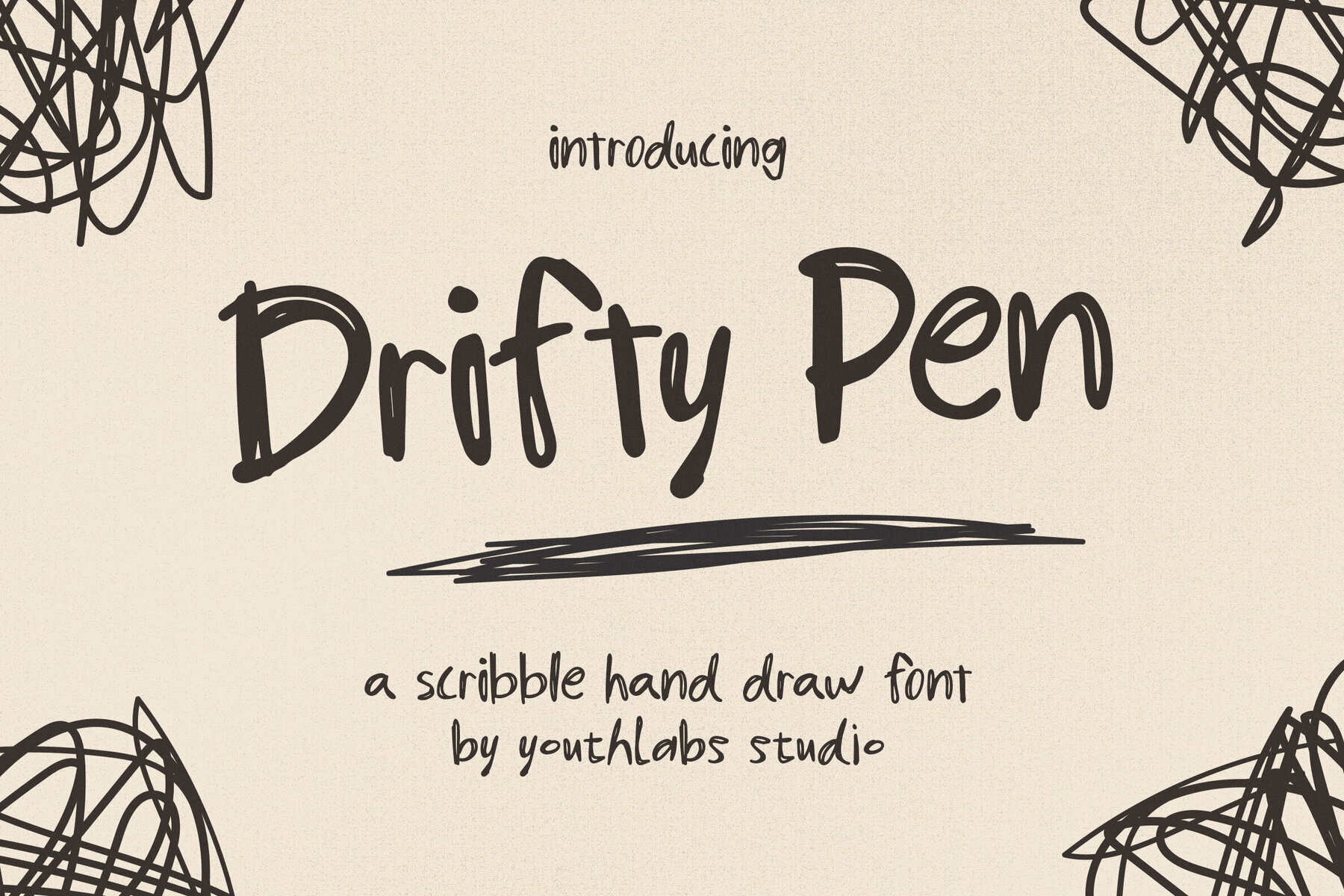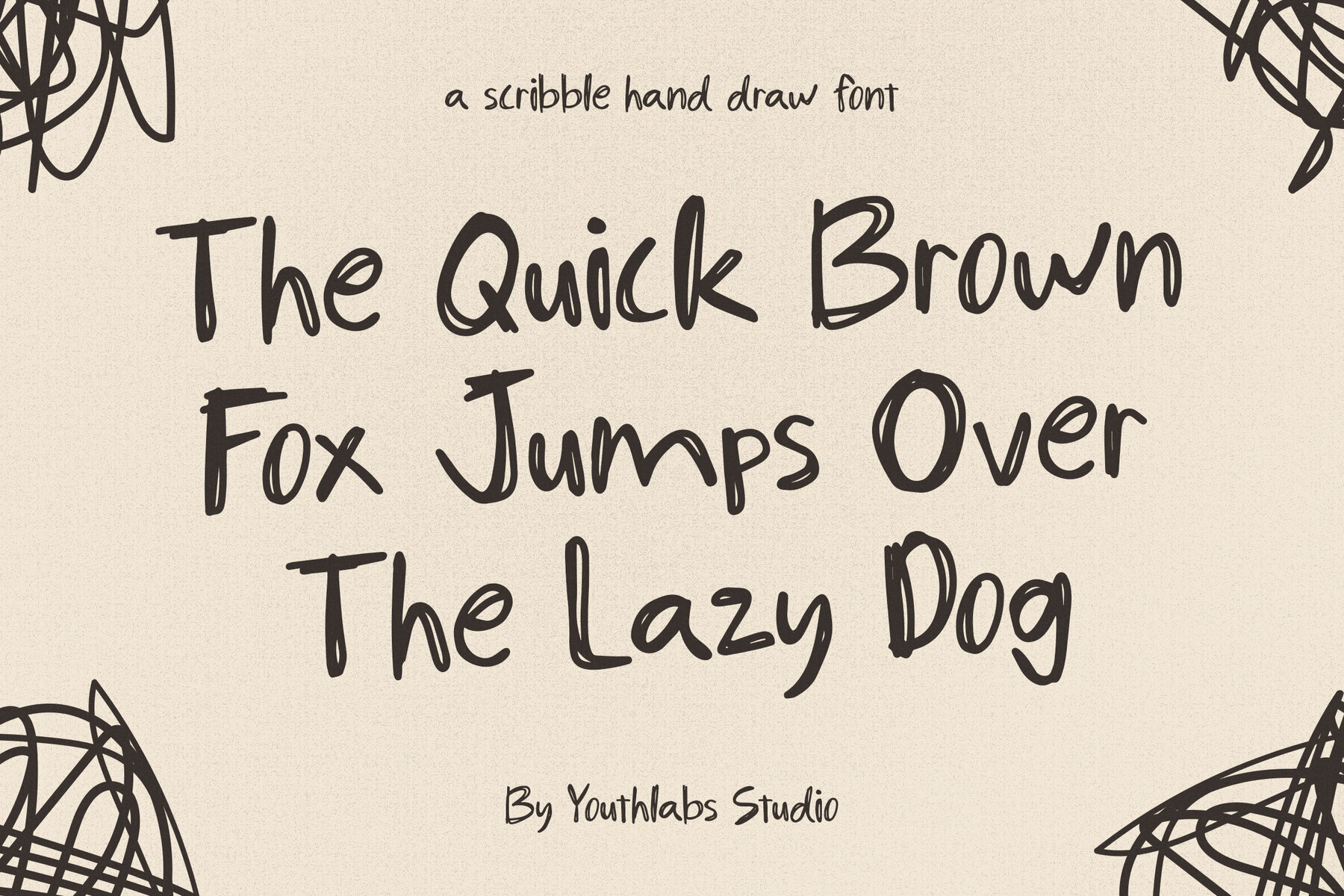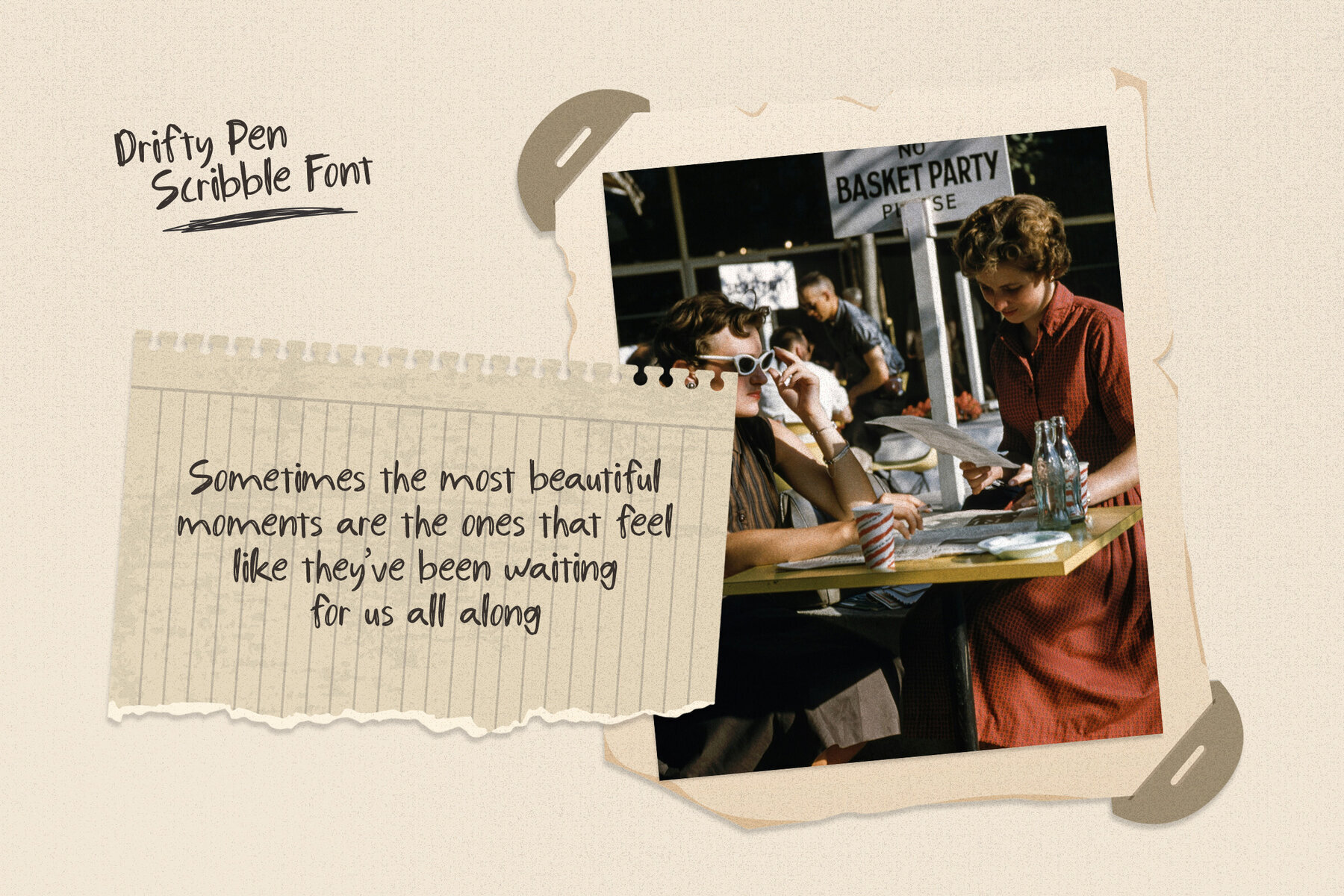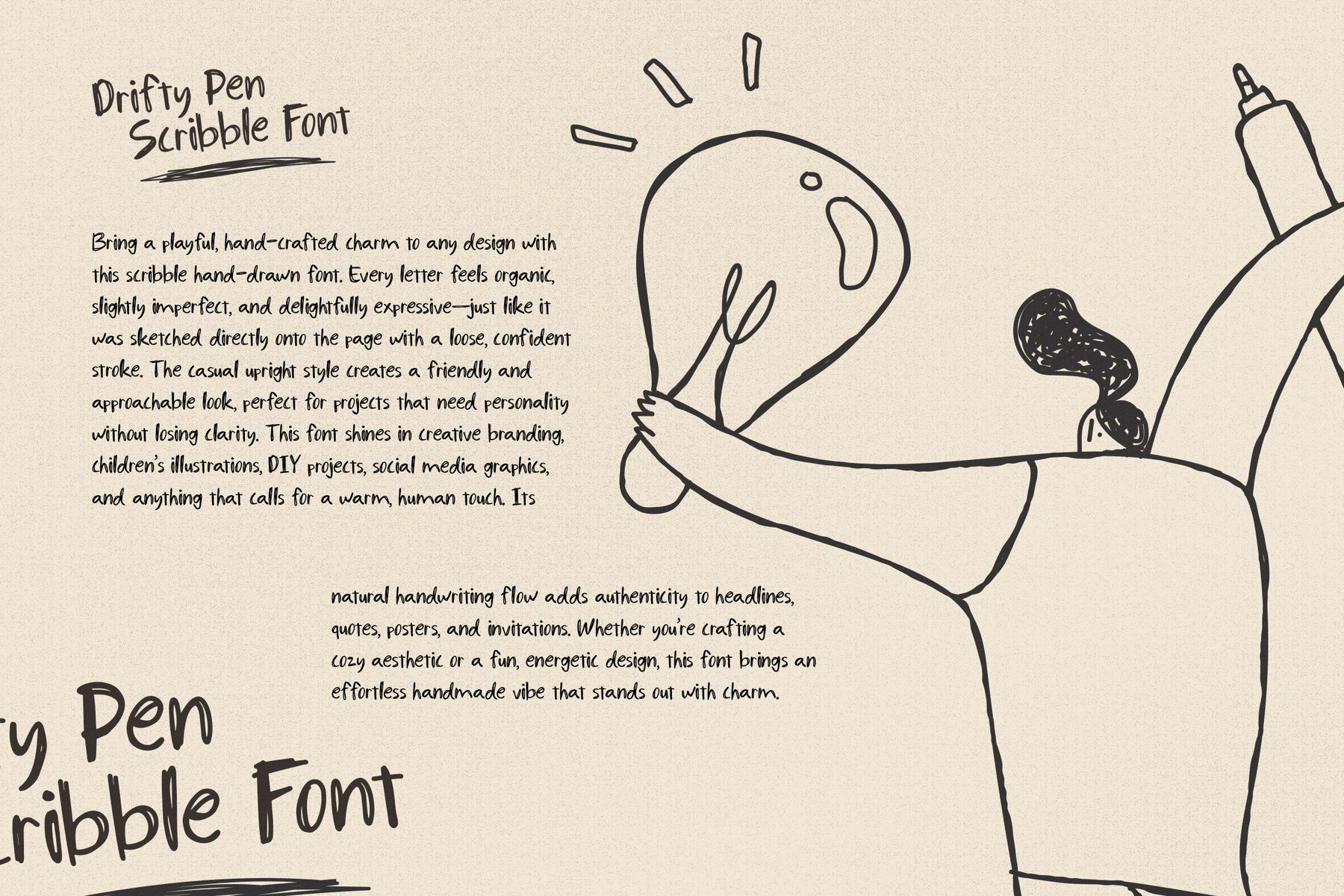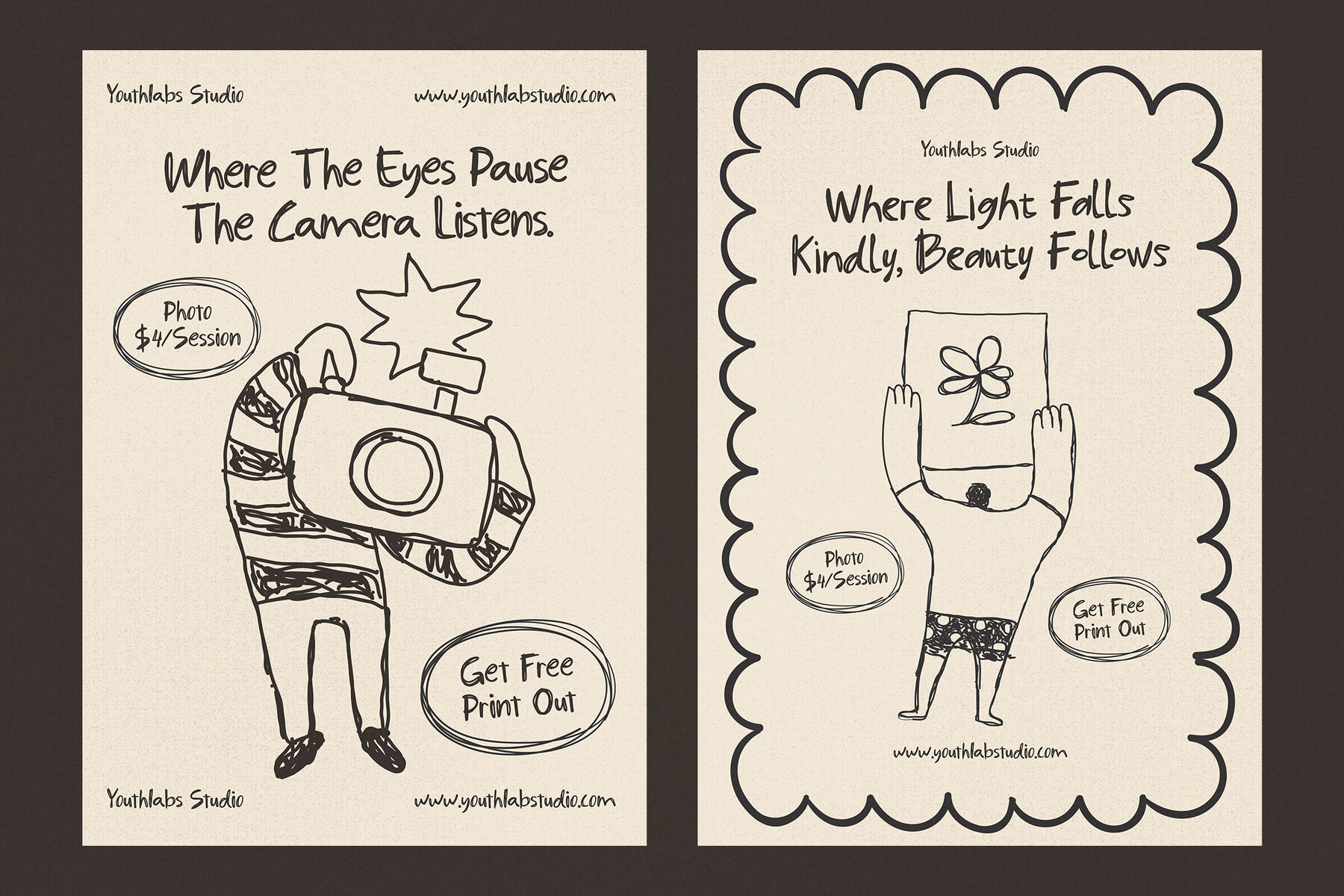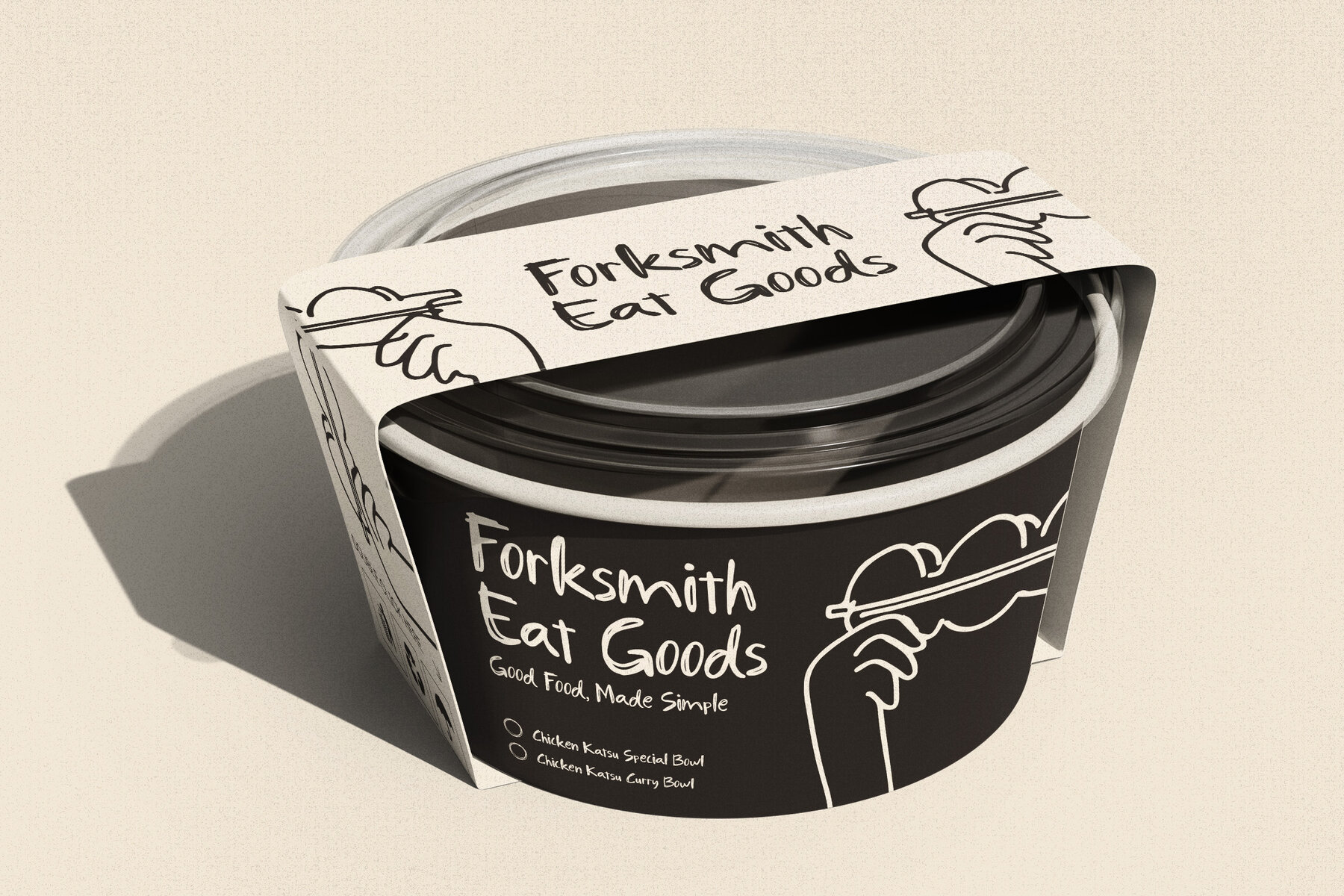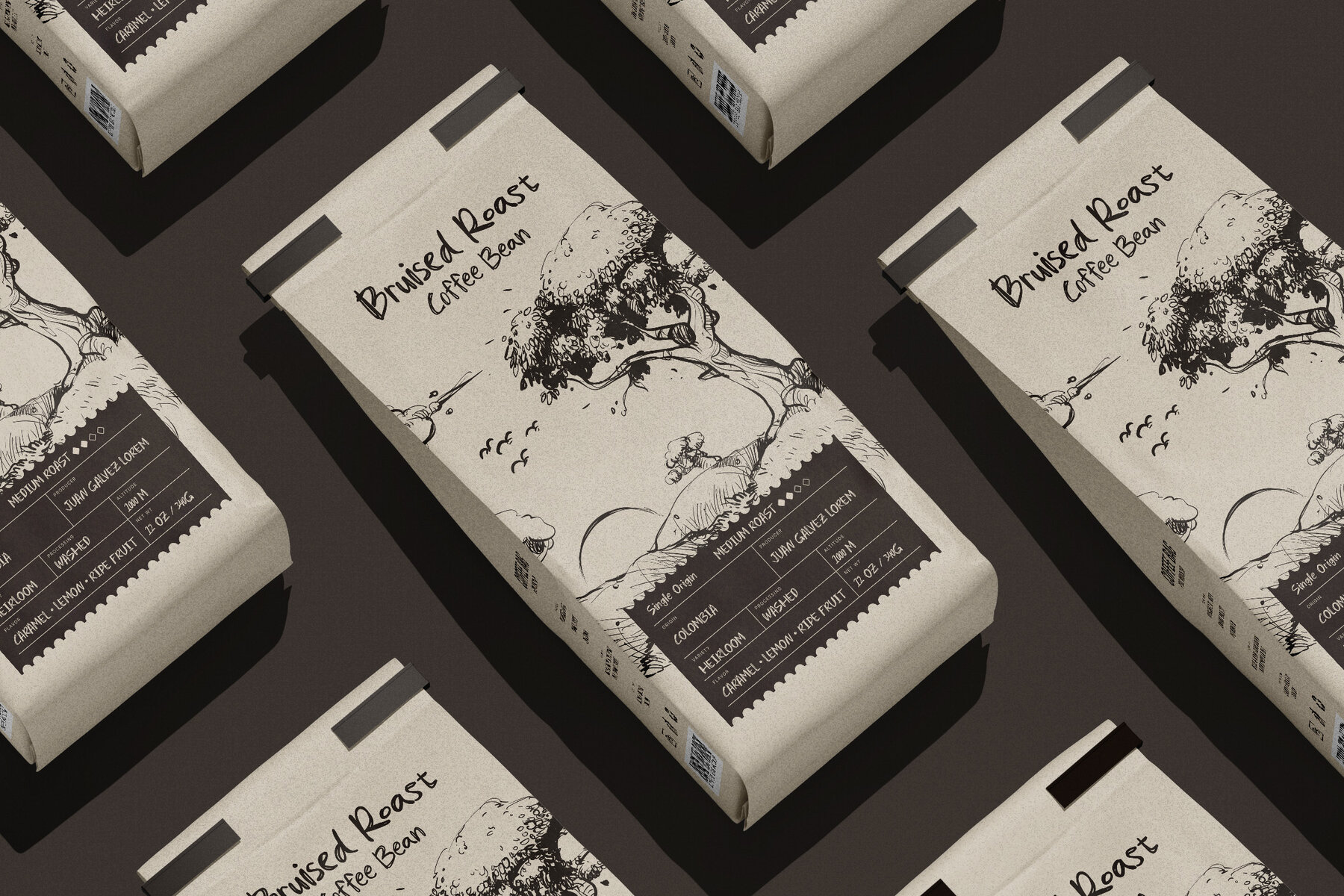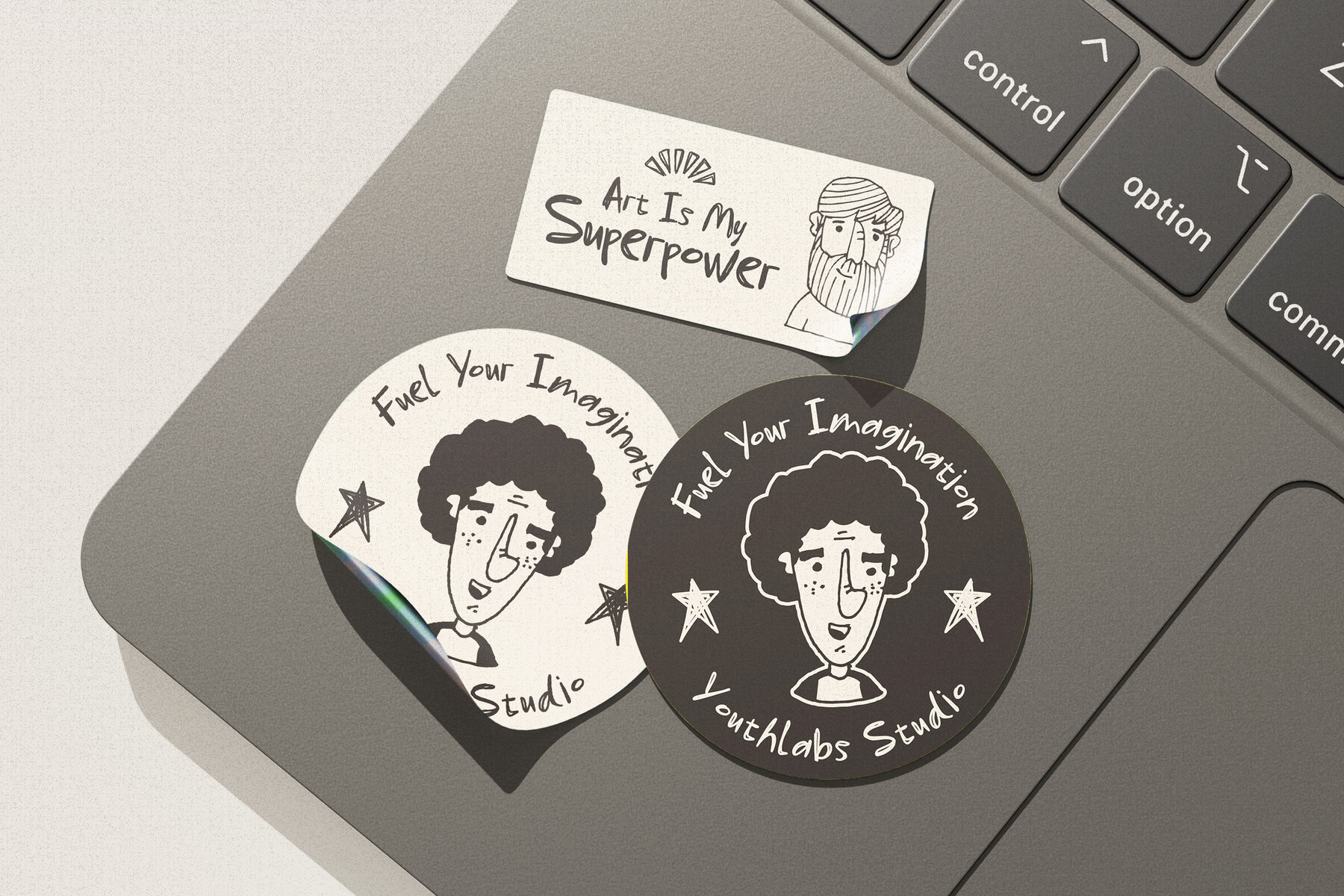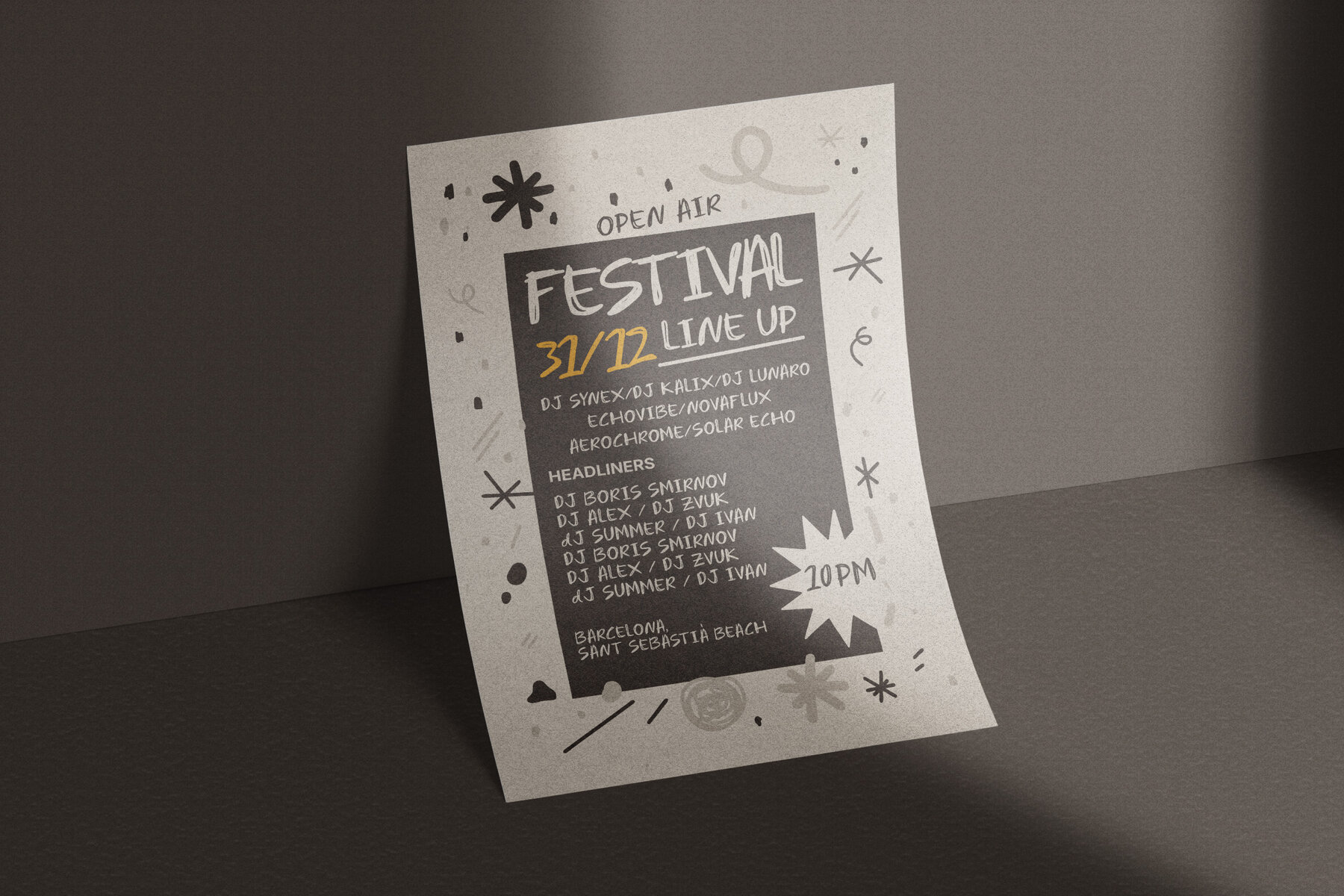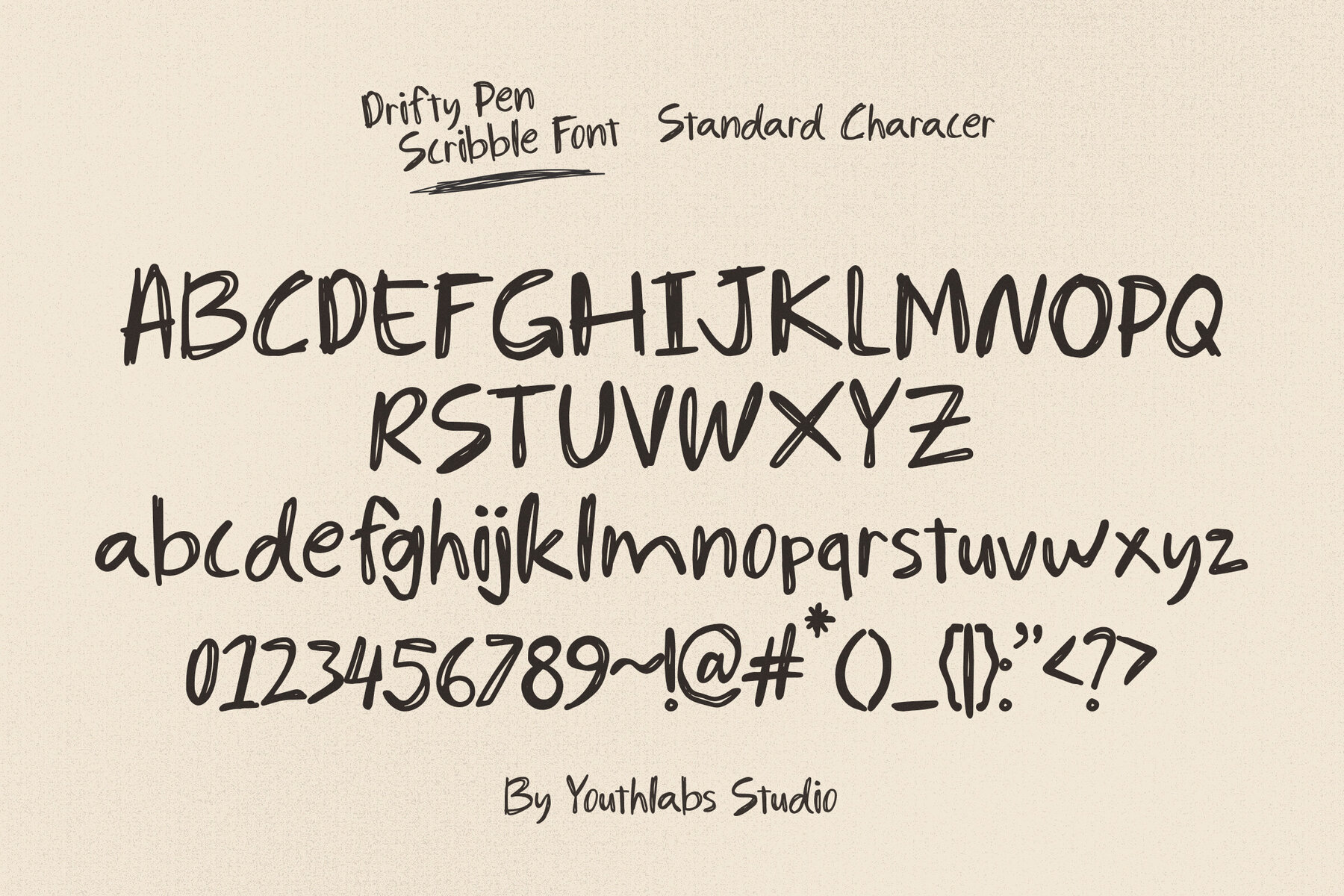
Drifty Pen Font
Drifty Pen Regular
Drifty Pen captures the lively energy of handwritten doodles, making it a distinctive choice for projects calling for a personal, casual feel. Its playful forms and organic curves echo the freedom of sketching by hand, infusing digital compositions with an approachable, handmade look. Drifty Pen is especially suited for children’s illustrations, social media graphics, branding with a relaxed spirit, and informal notes where authenticity stands out. The natural marker texture brings dimension to text, maintaining warm legibility even in more whimsical contexts. For creatives seeking a font with genuine charm yet functional clarity, Drifty Pen bridges the gap between spontaneity and readability.Drifty Pen: Playful Hand-Drawn Font With Marker-Inspired Lines